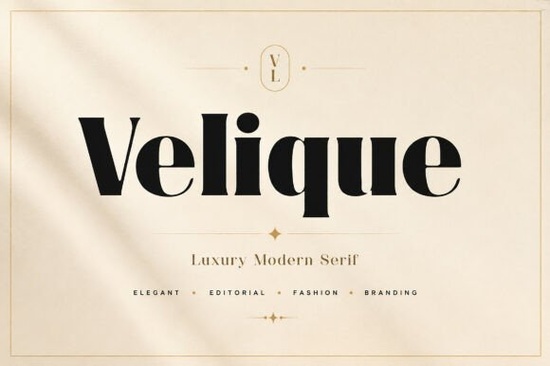
Velique Font is a standout choice for designers looking to add a touch of sophistication to their projects. This luxury serif typeface combines bold high-contrast strokes with elegant curves, making it ideal for premium branding and high-end visual identities. Whether you're working on fashion editorials, luxury packaging, or logos, Velique offers a modern-classic aesthetic that feels both timeless and contemporary.
The versatility of Velique makes it suitable for a wide range of applications. From skincare brands to wedding invitations, this font adds a polished and premium feel to any design. Its refined proportions and stylish letterforms make it a go-to option for those who want to create memorable and impactful visuals. The balance between editorial beauty and commercial use ensures that Velique can be used in both creative and practical contexts without compromising on quality.
What Makes Velique Stand Out?
Velique Font distinguishes itself through its attention to detail and unique character. The bold strokes give it a strong presence, while the elegant curves add a sense of refinement. This combination makes it perfect for designs that need to convey both power and grace. The font’s versatility allows it to work well in both digital and print formats, ensuring consistency across different media.
Designers who value clarity and style will appreciate how Velique maintains readability even at smaller sizes. Its clean structure and balanced spacing make it easy to use in long-form text, while its striking appearance shines in headlines and titles. This makes it a reliable choice for everything from website copy to marketing materials.
Best Uses for Velique Font
Velique is particularly well-suited for projects that require a luxurious feel. For example, fashion labels can use it to create eye-catching logos that reflect their brand’s identity. Skincare brands might choose it for packaging that conveys elegance and sophistication. Wedding invitations often benefit from its refined look, adding a touch of class to every detail.
Perfume packaging, boutique hotels, and social media campaigns also find Velique to be an excellent fit. Its ability to blend modern and classic elements makes it adaptable to various industries and design styles. Whether you’re working on a single project or building a full brand identity, Velique provides a consistent and professional look.
Similar Fonts to Consider
When choosing a font, it's important to consider how it will fit into your overall design. Velique is a strong choice for those who want to make a lasting impression with their typography. Its balance of style and functionality ensures that it can be used in a variety of settings without losing its impact.